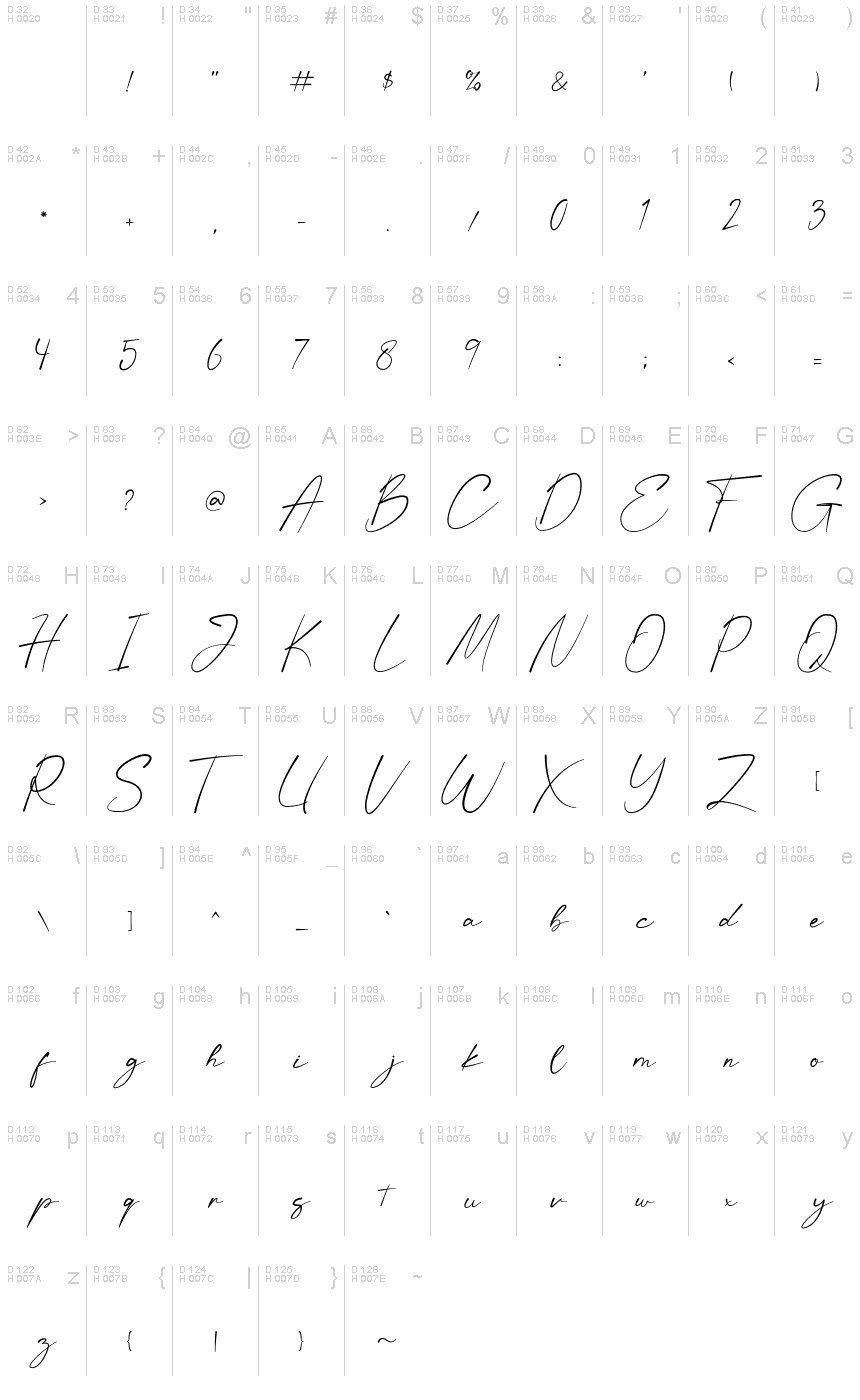
First Month
First Month, the newest addition to the font world, is a beautifully crafted handwritten signature font designed by Rangga Putra Budi Pratama. Its extra-light weight adds a touch of elegance and sophistication to any project. Perfect for invitations, logos, and branding materials, this font is able to convey a sense of personal touch and authenticity. Its unique style makes it ideal for creative projects such as digital art and social media graphics. Whether you're creating a wedding invitation or designing an album cover, First Month is sure to leave an unforgettable impression on your audience.